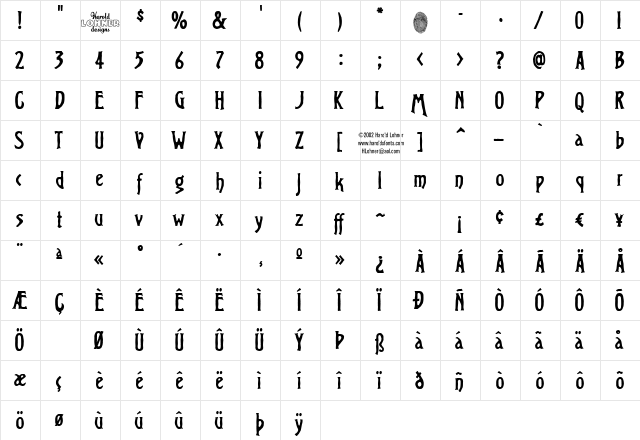
VirileSolid Regular
Design Context for VirileSolid Typeface
VirileSolid is a composed and adaptable typeface that performs quietly and consistently across a wide range of design contexts.